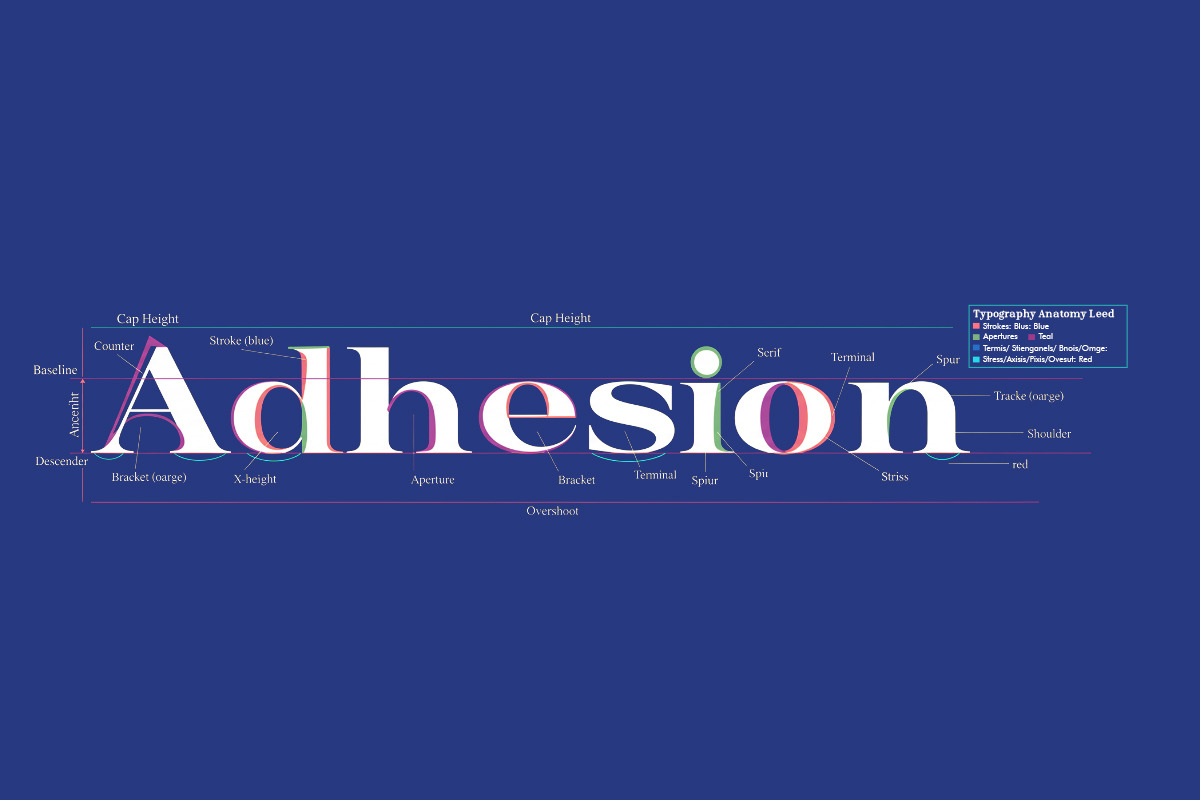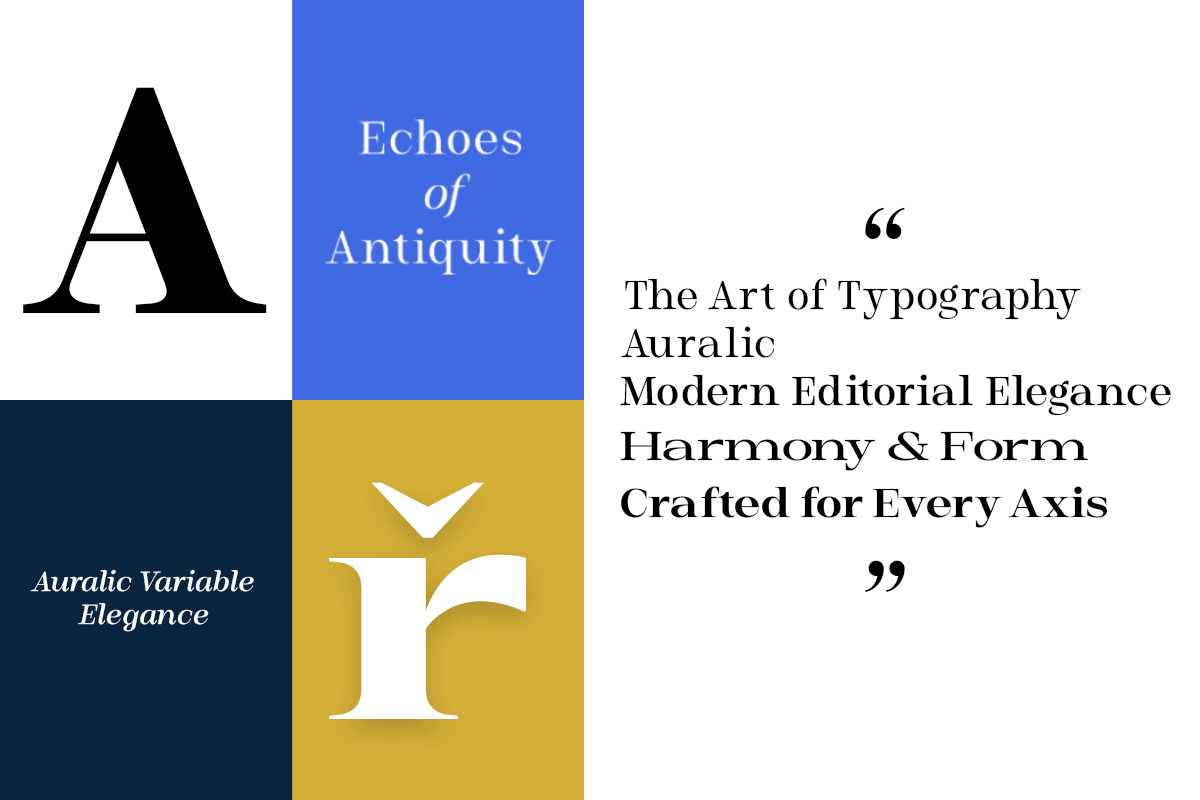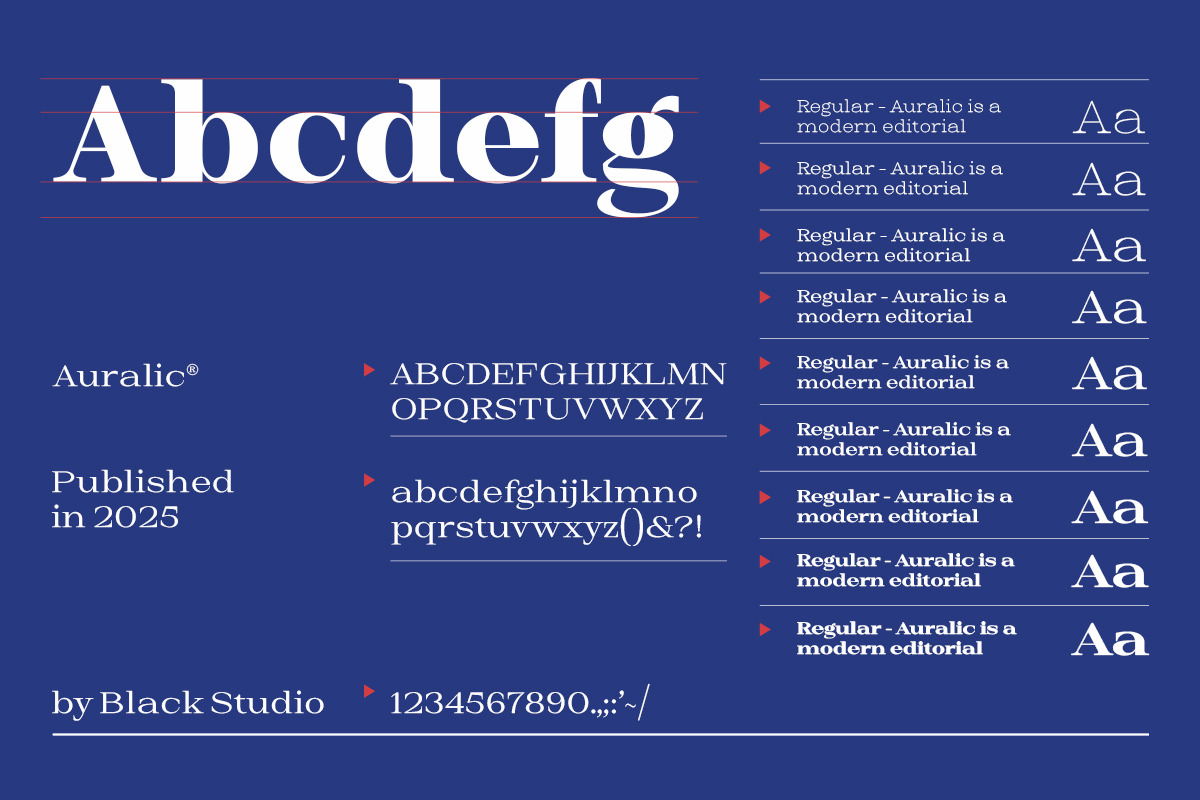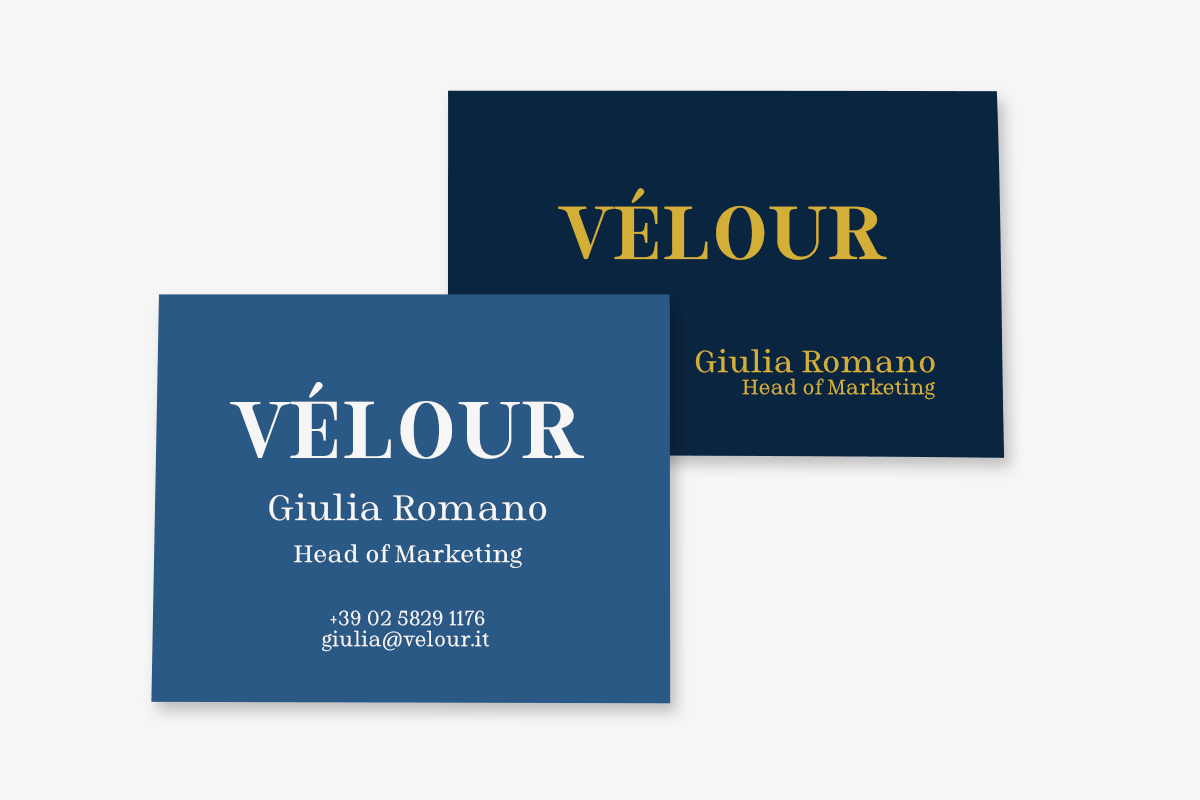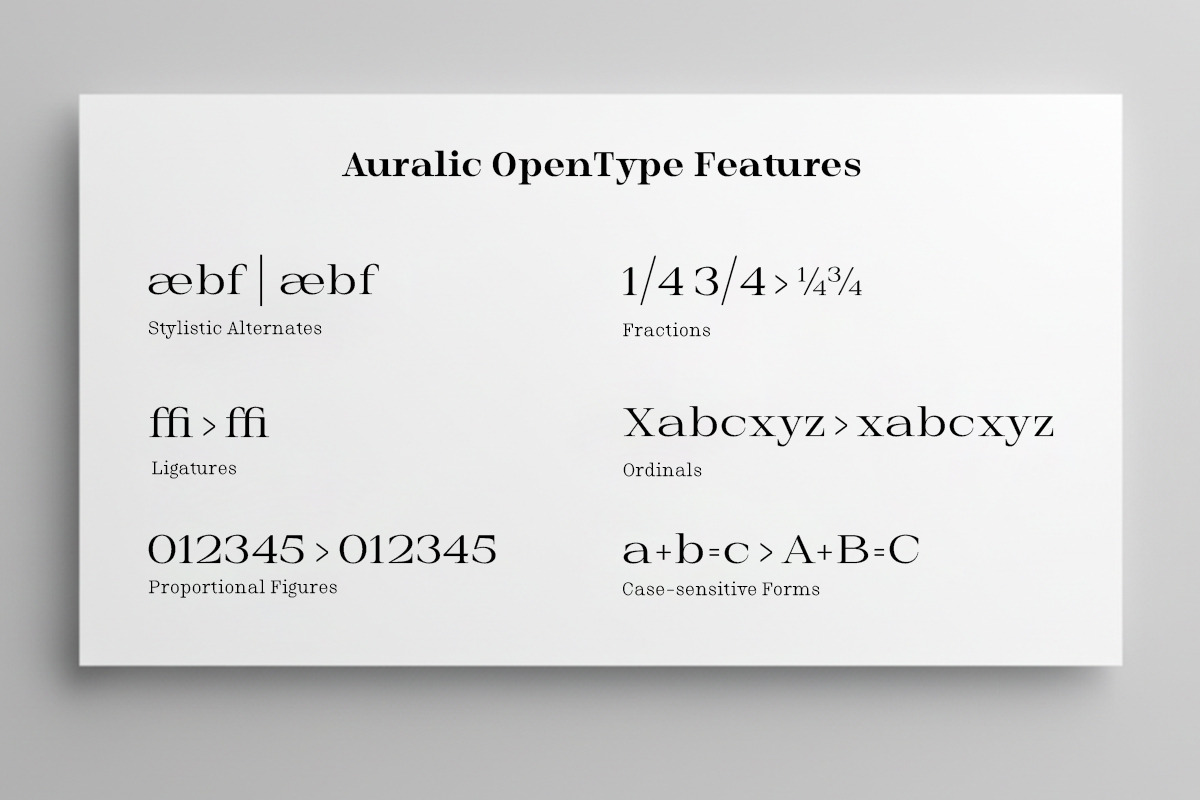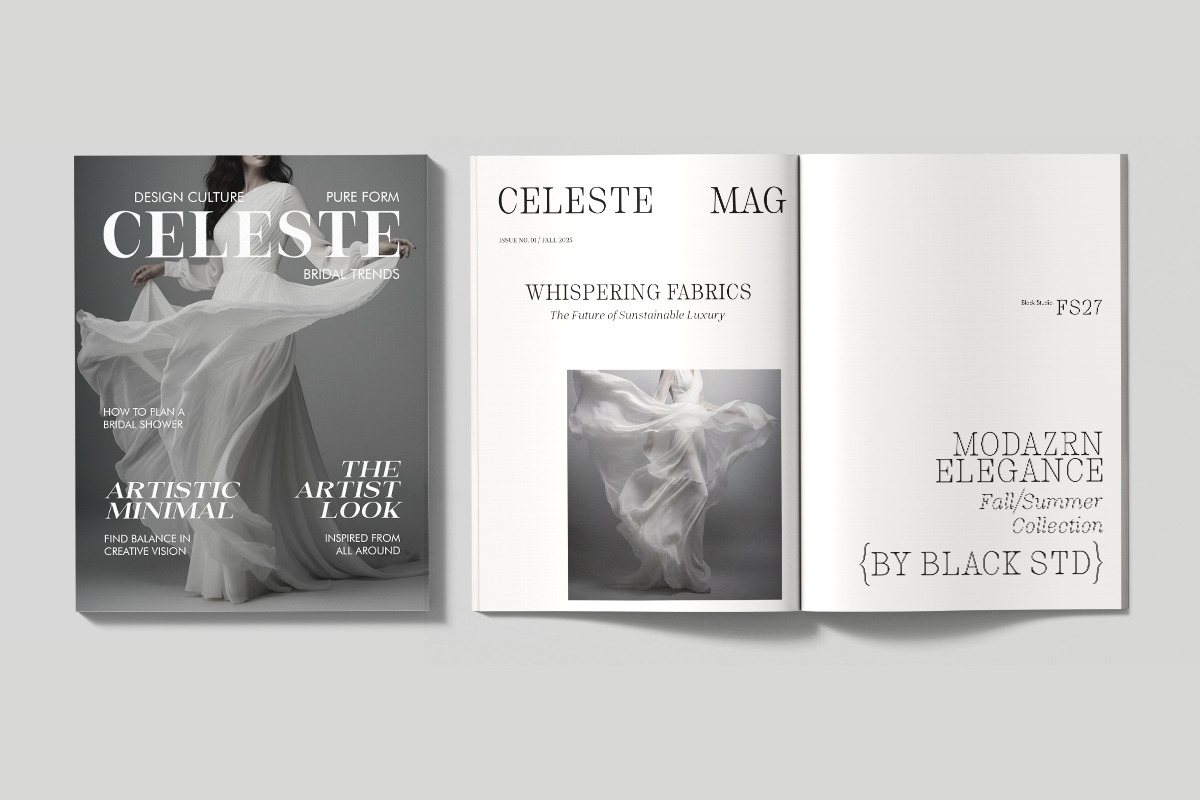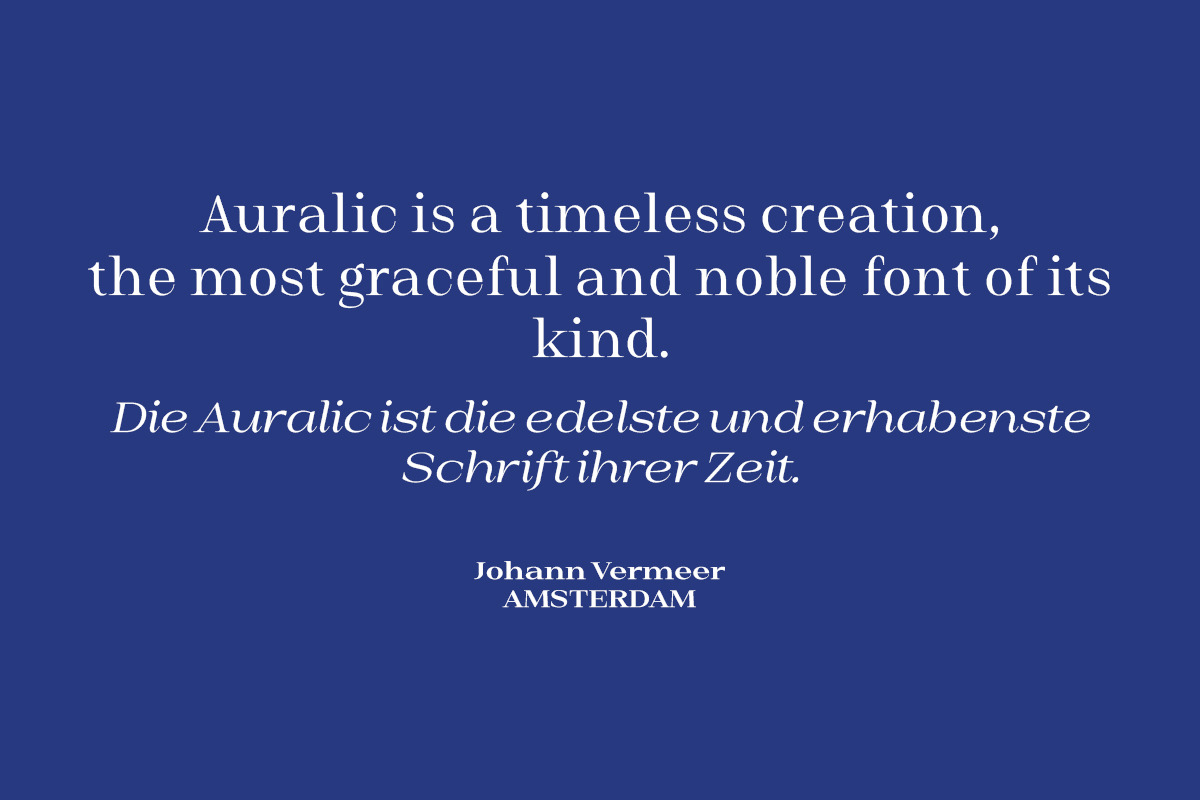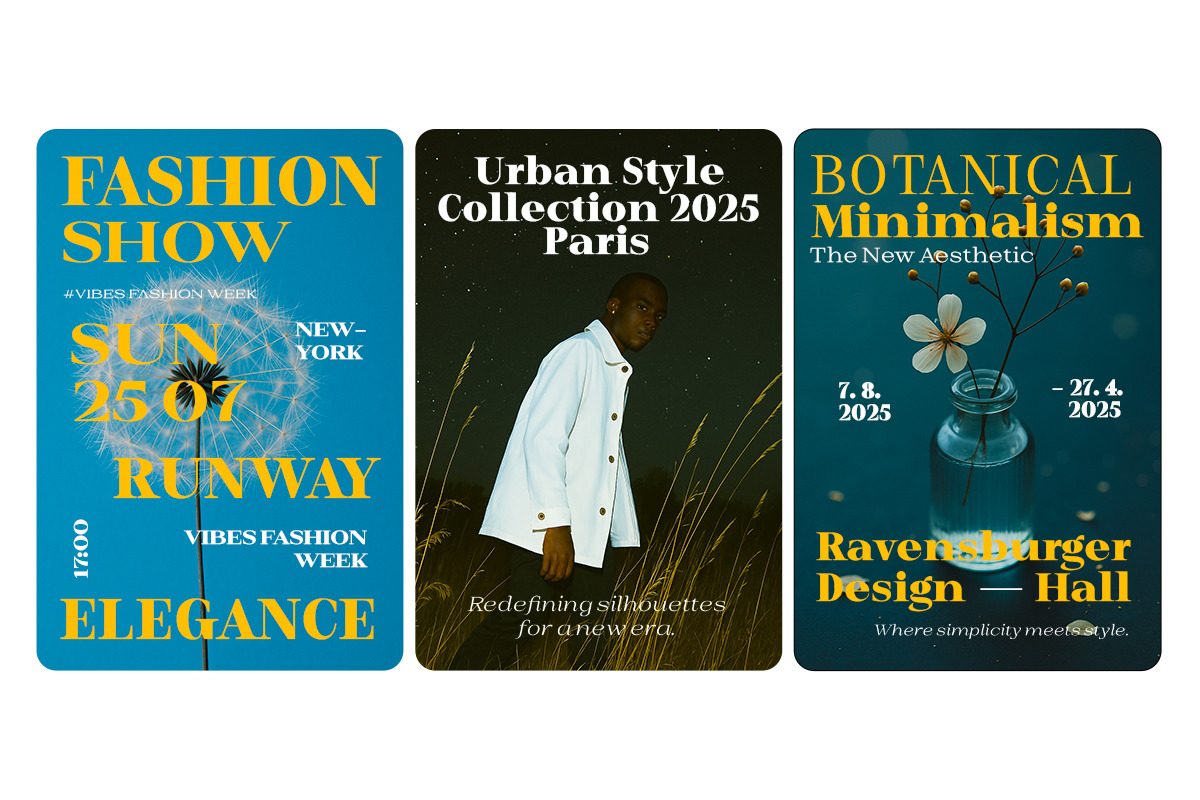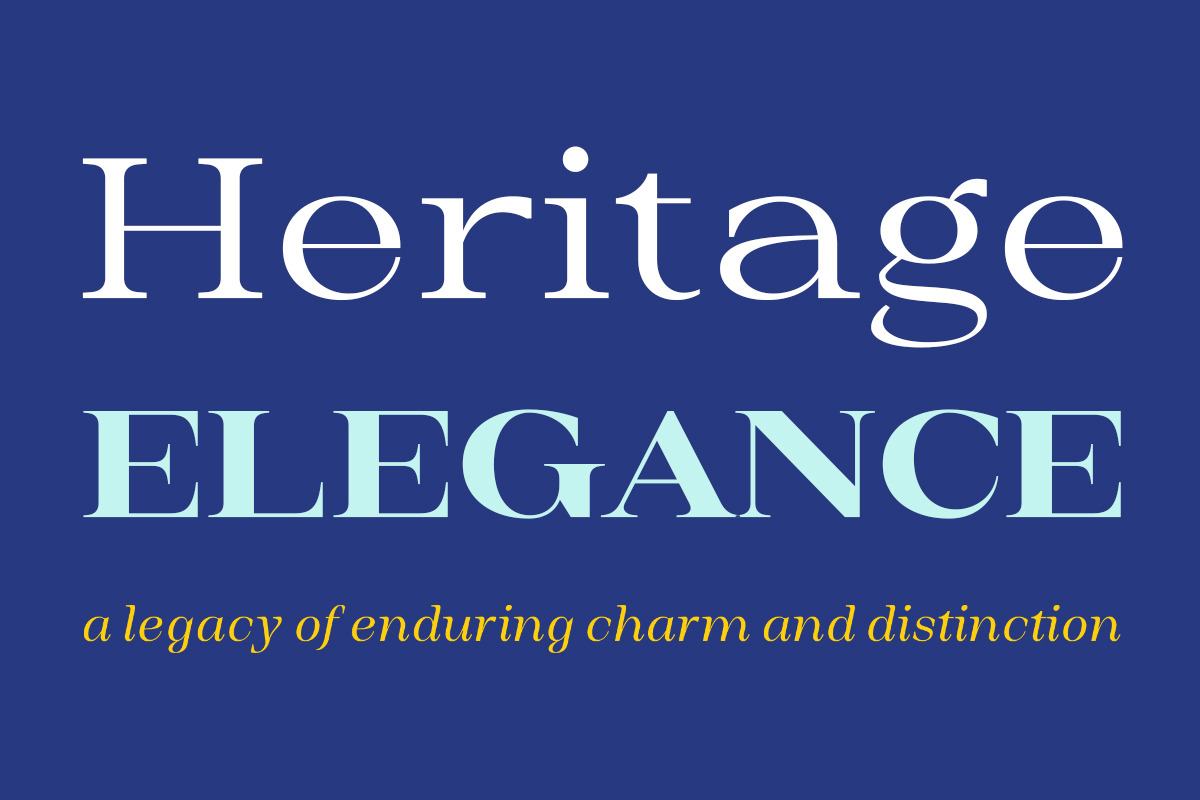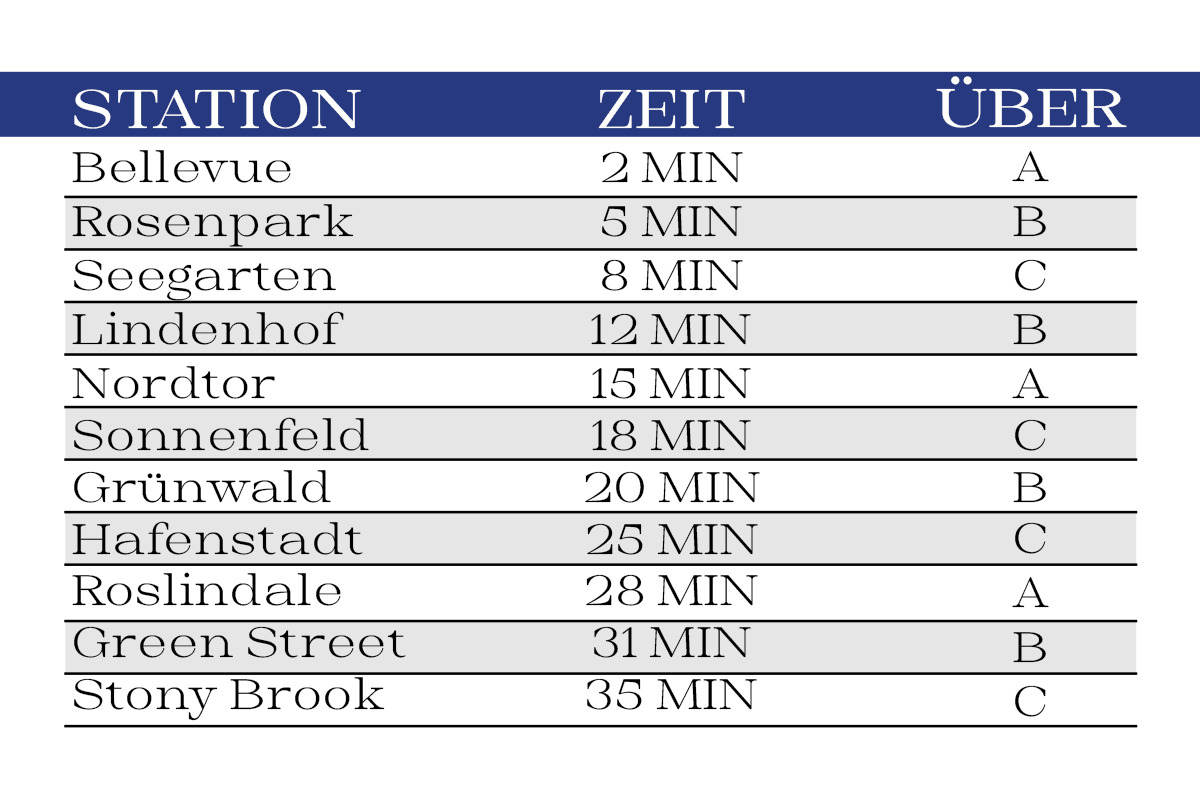
Auralic
Introducing Auralic, a sophisticated variable serif typeface that embodies editorial elegance with a modern spirit. Designed with three distinct axes of expression, Auralic offers unparalleled versatility, allowing you to seamlessly navigate between 180 unique styles. Its high-contrast letterforms, sharp serifs, and graceful curves are crafted to bring a touch of luxury and clarity to any project.
Perfect for high-end branding, magazine layouts, book publishing, and refined web design, Auralic ensures your message is delivered with poise and confidence. With extensive Latin-Extended language support, this font is a powerful tool for designers aiming to create timeless and impactful work for a global audience.
Typeface Features
Comprehensive Font Family: Auralic is a complete variable font with three axes of expression (e.g., Weight, Width, Slant), providing access to 180 static styles from Thin to Black.
Full Character Set: Uppercase and lowercase letters, numbers, punctuation, and symbols.
Extensive Language Support: Features full Latin-Extended character support to cater to a wide range of European and international languages.
Advanced OpenType Features:
Stylistic Alternates: Provides alternative glyphs to give your designs a unique and custom feel.
Ligatures: Includes standard and discretionary ligatures for more natural and elegant letter pairings.